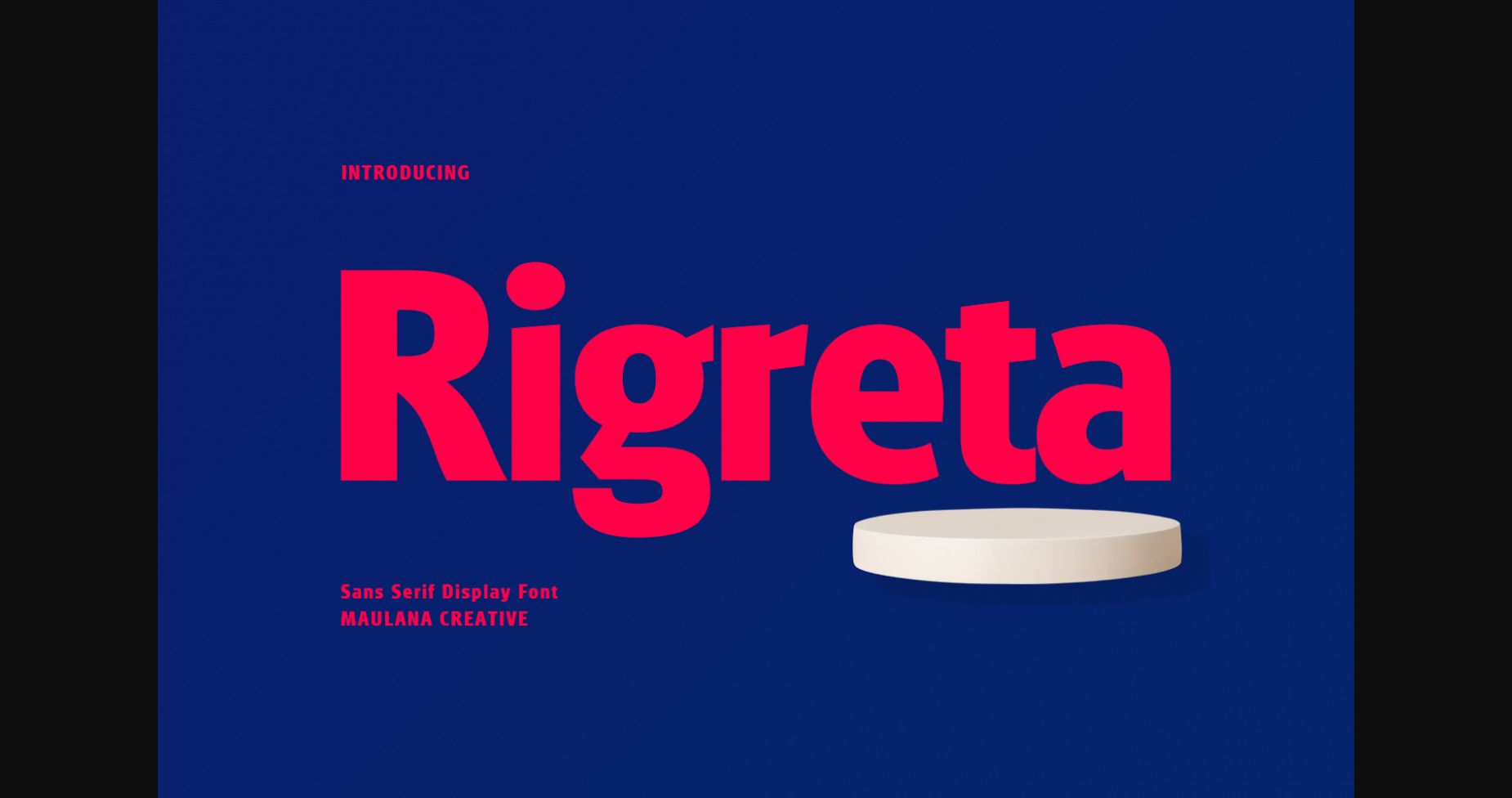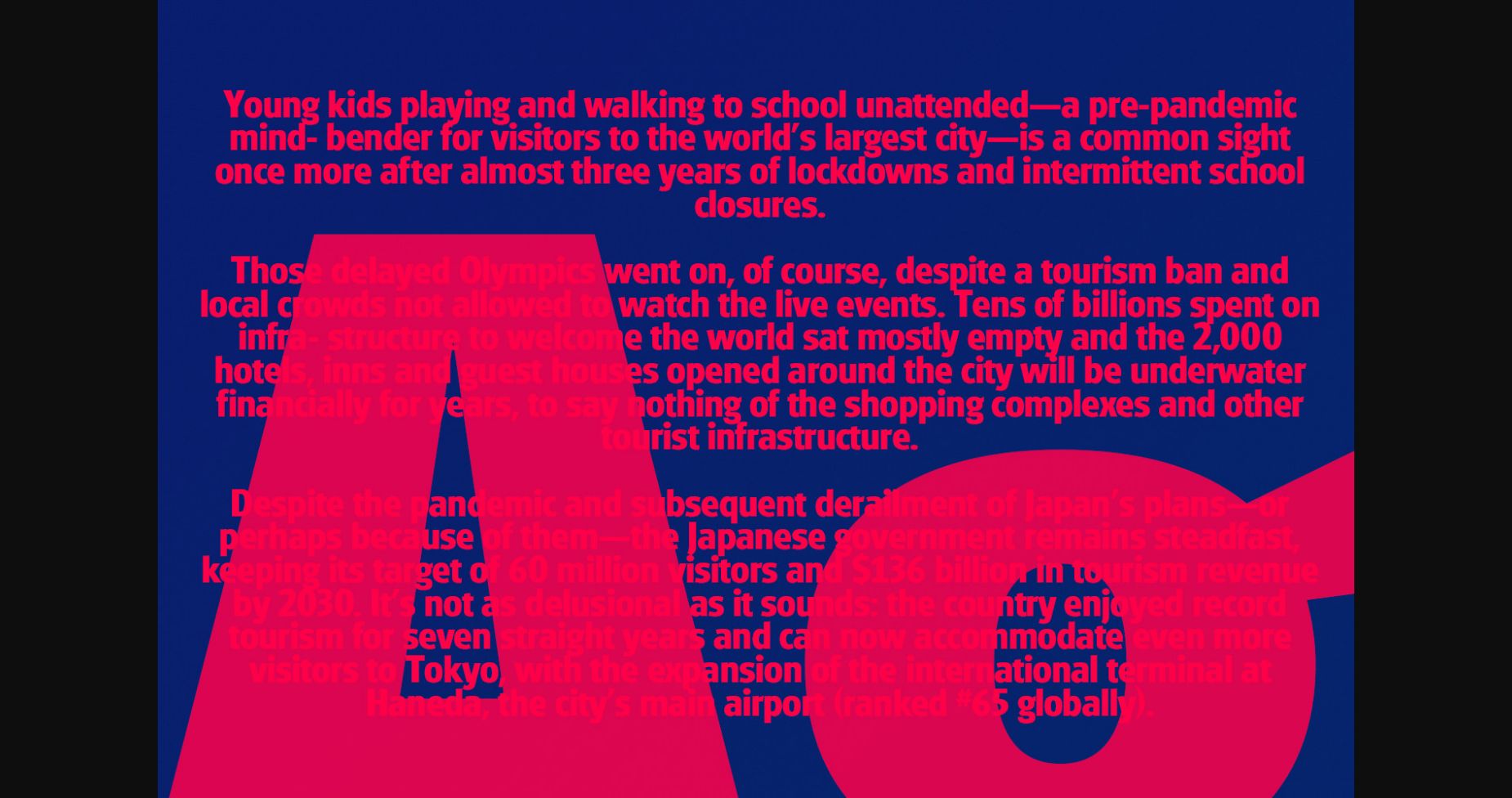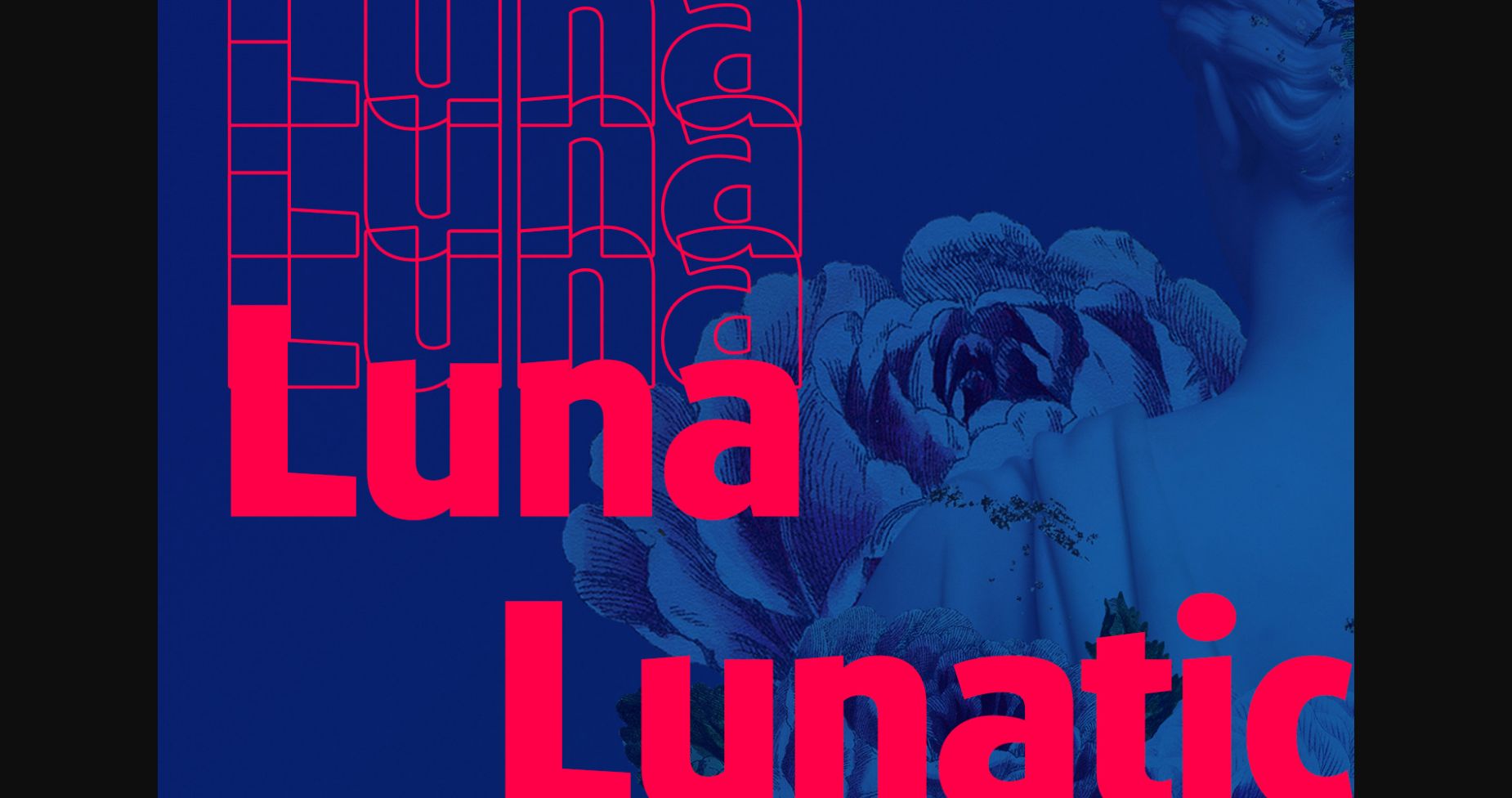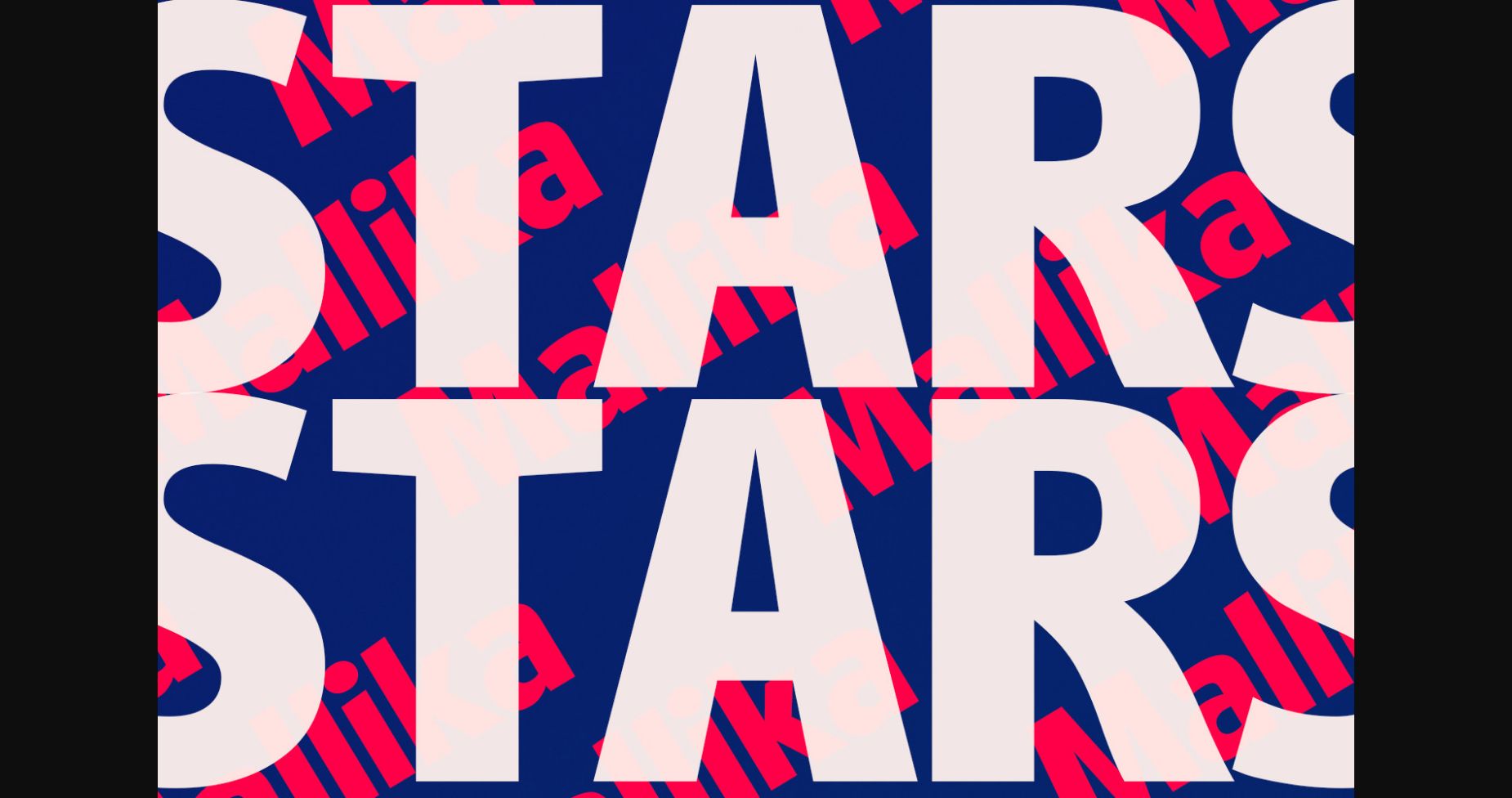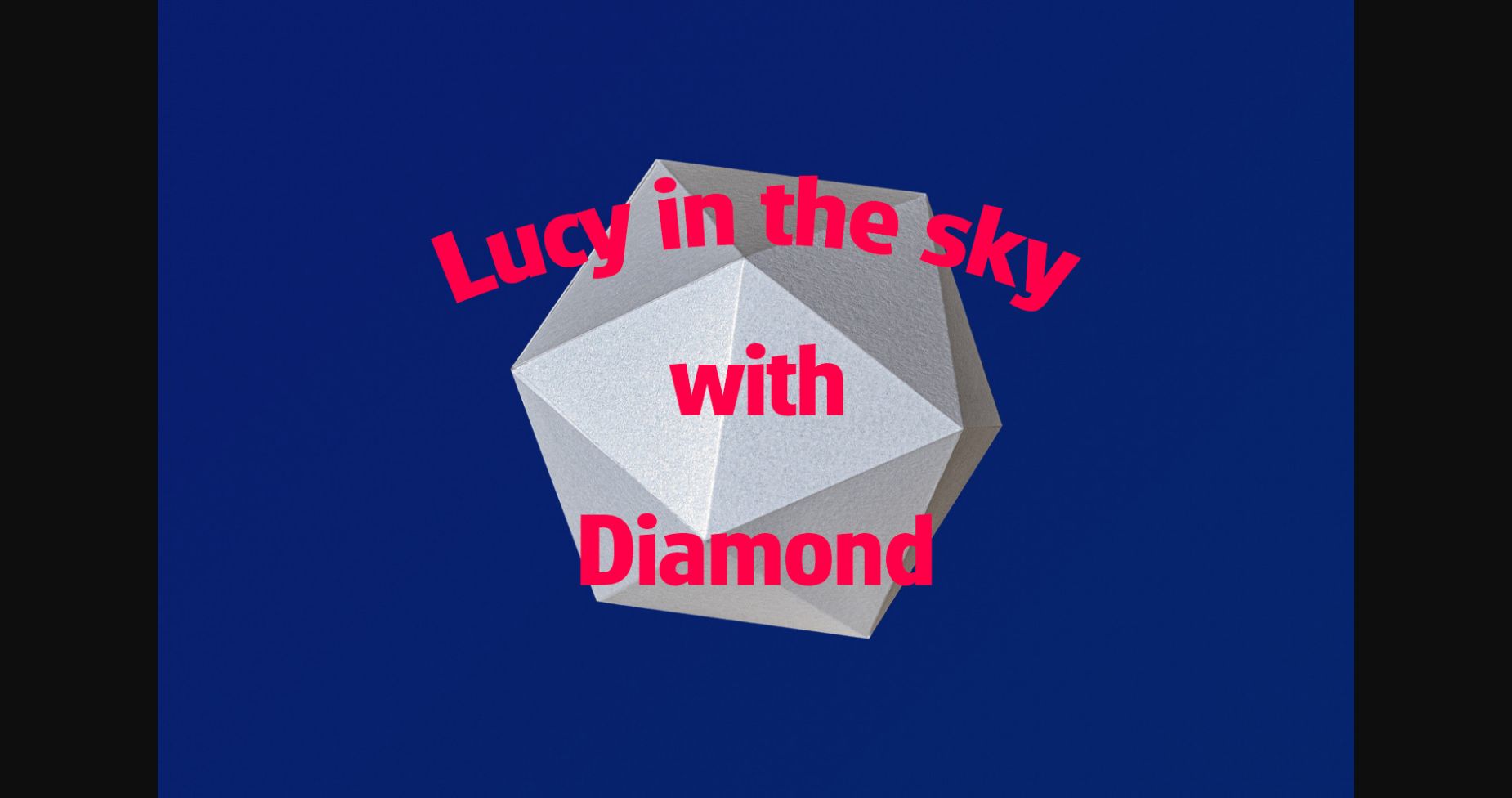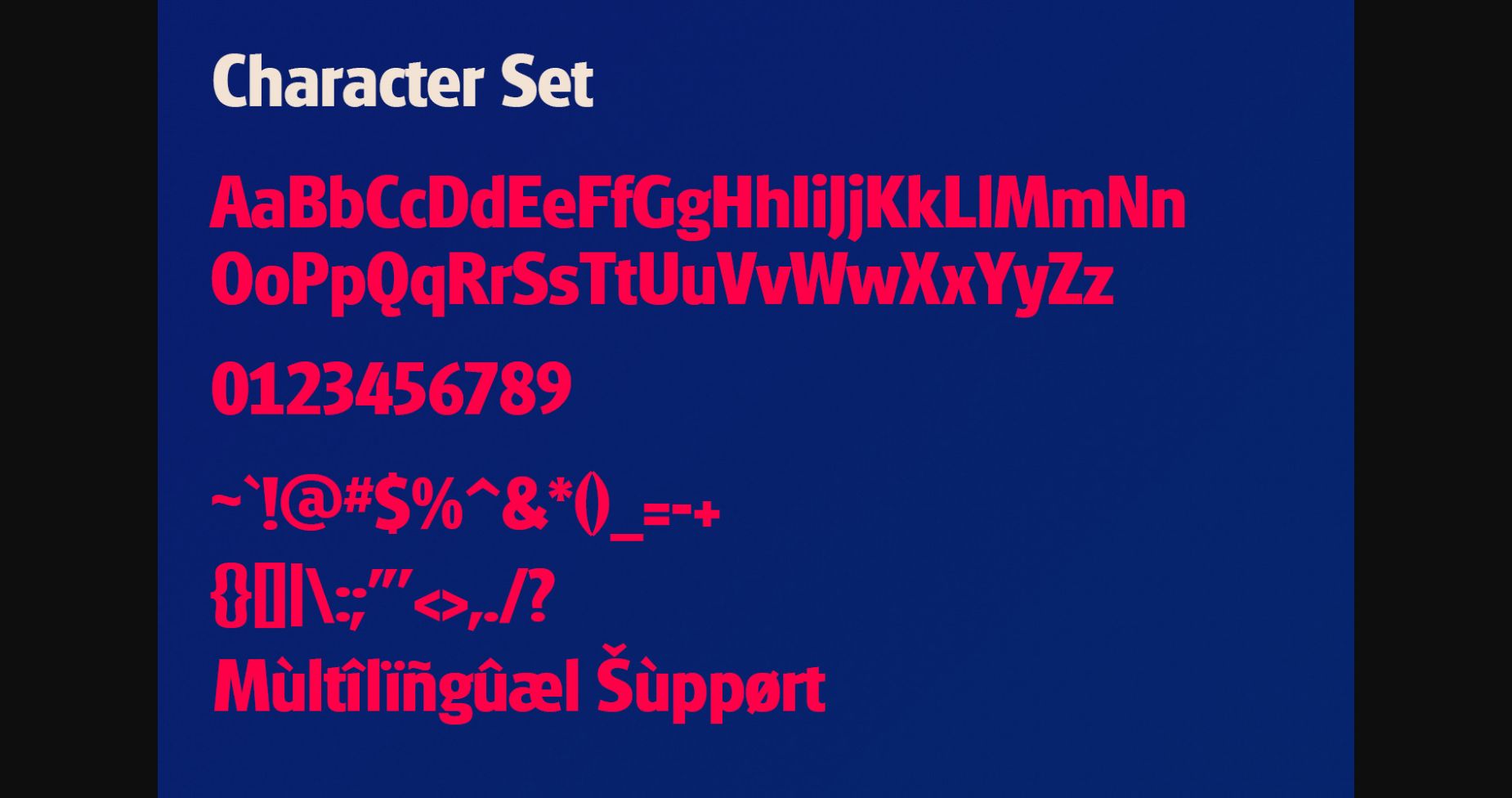
Rigreta Font
About Rigreta Font
Rigreta is a modern bold sans display font. Bold stroke, fun character with a bit of ligatures and alternates. This font is good for logo design, Social media, Movie Titles, Books Titles, a short text even a long text letter and good for your secondary text font with script or serif. Make a stunning work with Rigreta font.